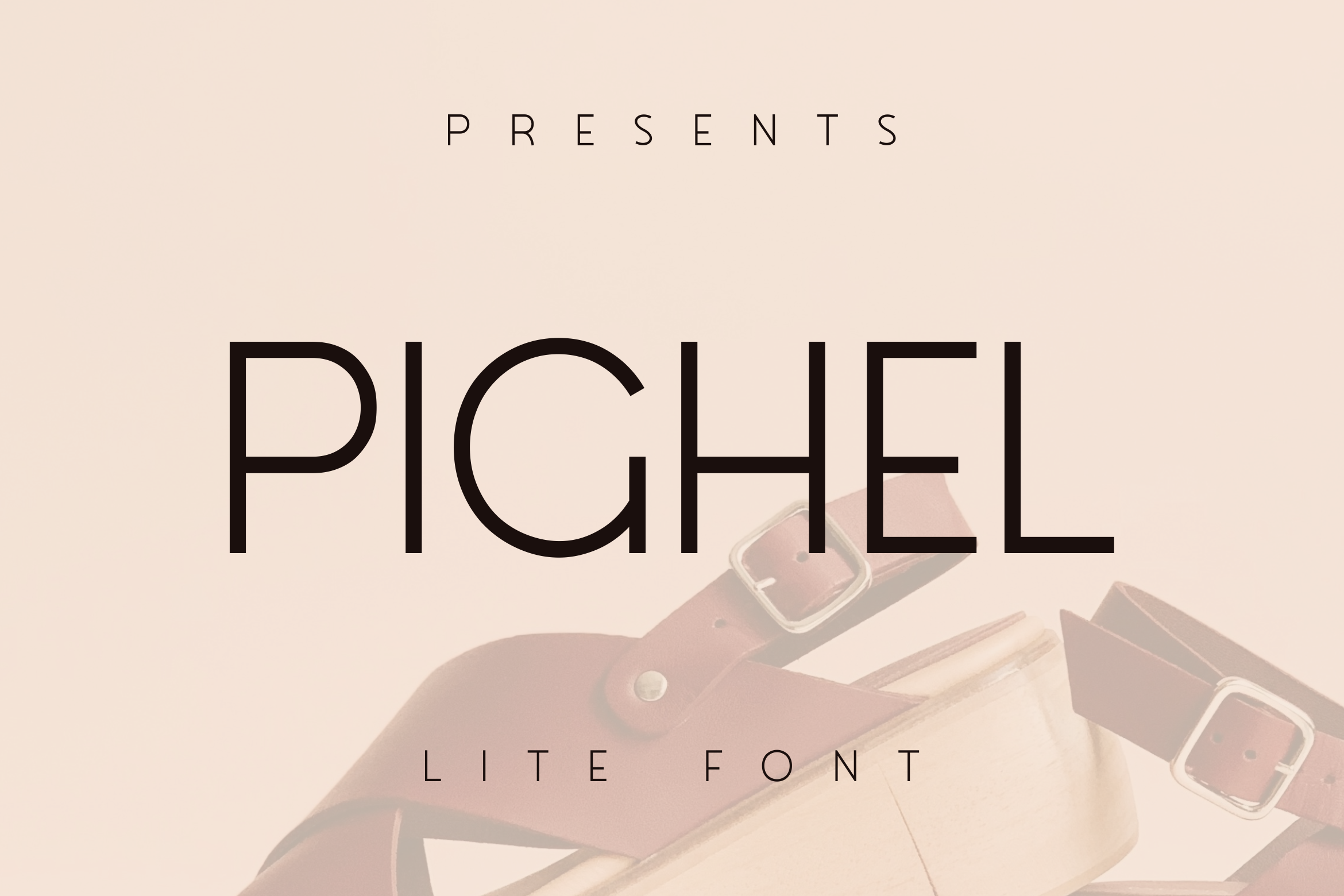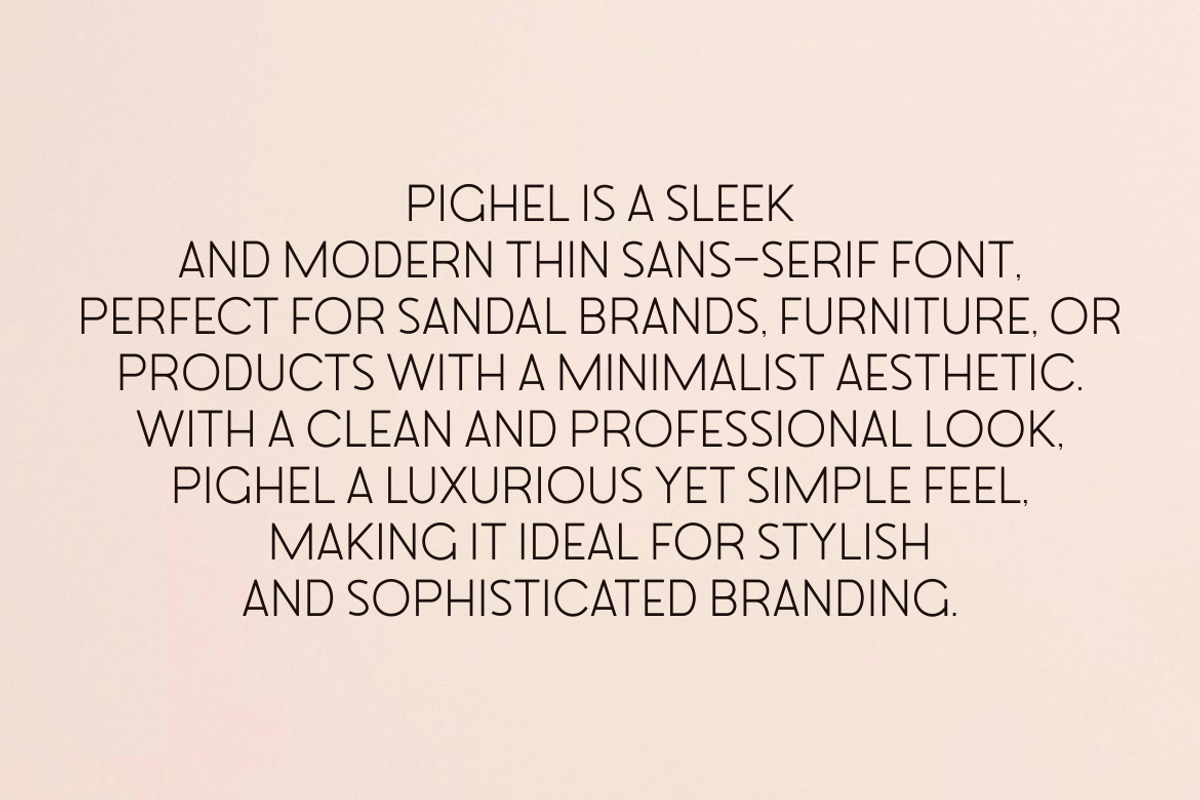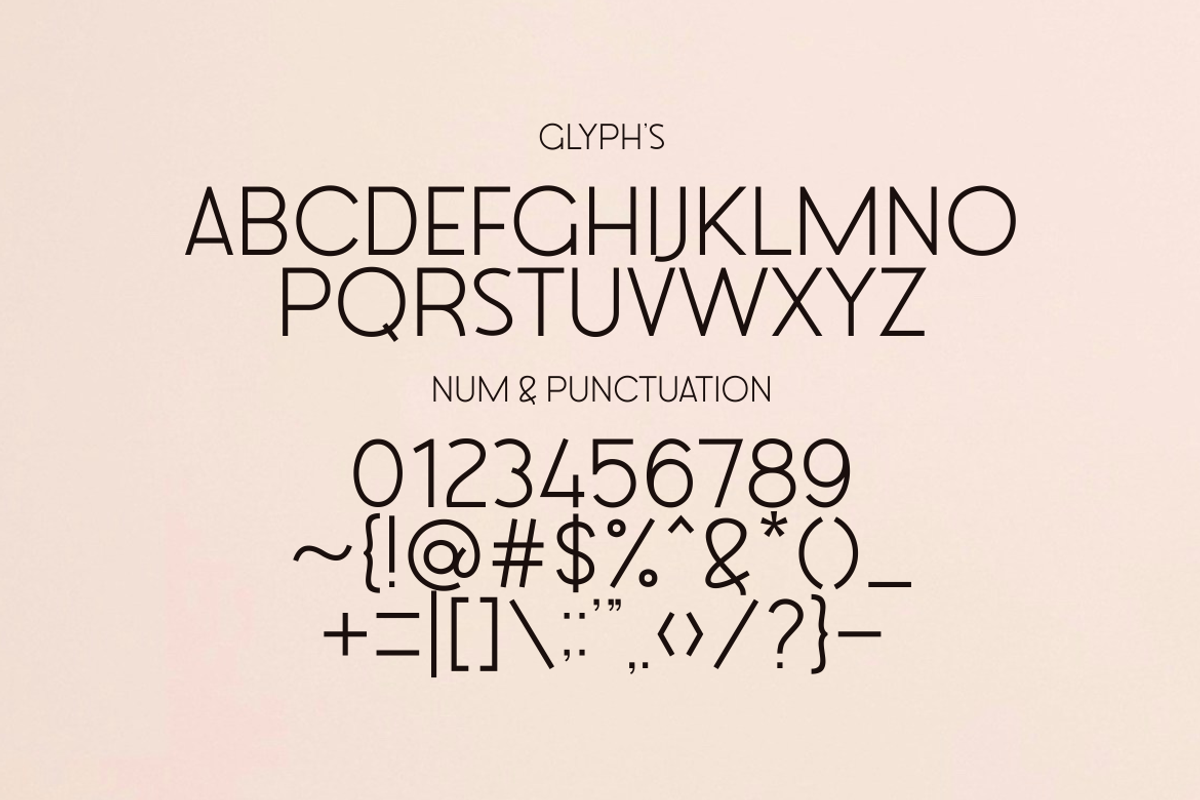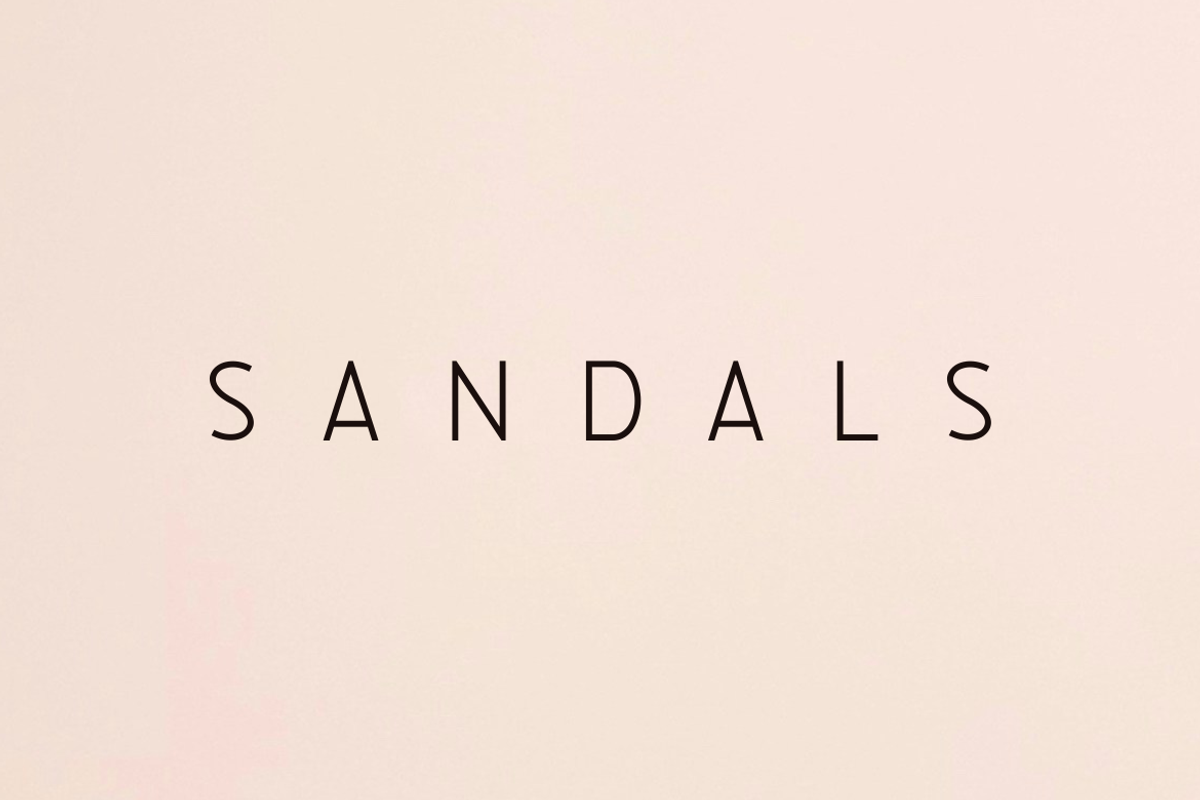
Pighel - Lite Font
Pighel is a sleek and modern thin sans-serif font, perfect for sandal brands, furniture, or any product with a minimalist aesthetic. With its clean and professional look, Pighel exudes luxury while maintaining simplicity—ideal for stylish and sophisticated branding. Designed for versatility, it’s available in both OTF and TTF formats, ensuring seamless compatibility across all your creative projects. Elevate your brand with Pighel’s timeless elegance!